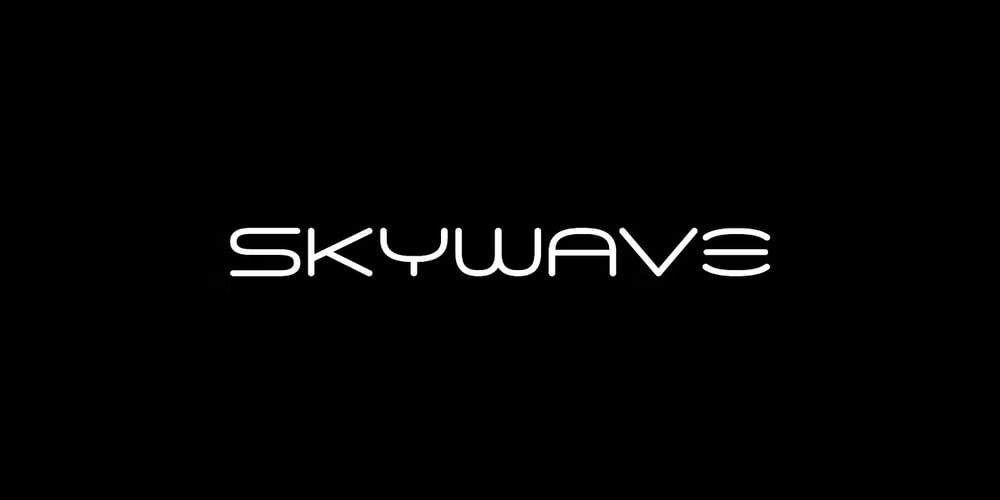
Skywave Font Family was designed by Jean Johnson and published by Designova. Skywave contains 8 styles and family package options. Mriya Grotesk – a pure Sans-Serif typeface created with perfection at the same time keeping the premium type design aesthetics at it’s level best. A perfect typeface for any kind of web / print usage – body text, headlines, logotypes, branding, marketing graphics, corporate identities and more. Just see the demo images to get an idea about the typeface usage examples.This pack comes with a total of 8 fonts: 4 Weights (Light / Regular / Bold / Heavy) 4 Weights of Italic versions (Light / Regular / Bold / Heavy) Uppercase